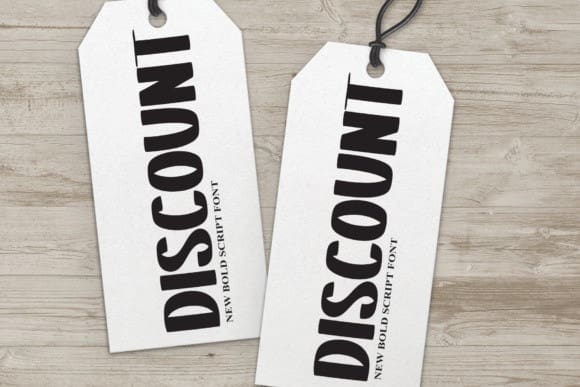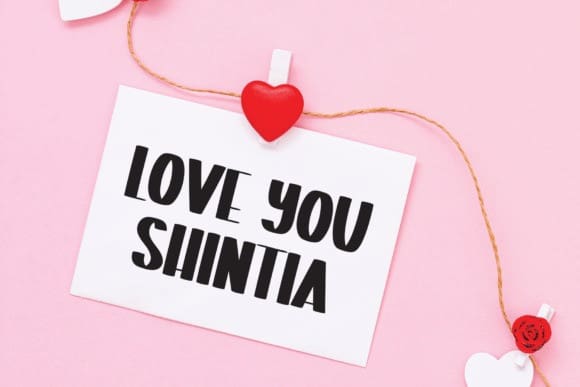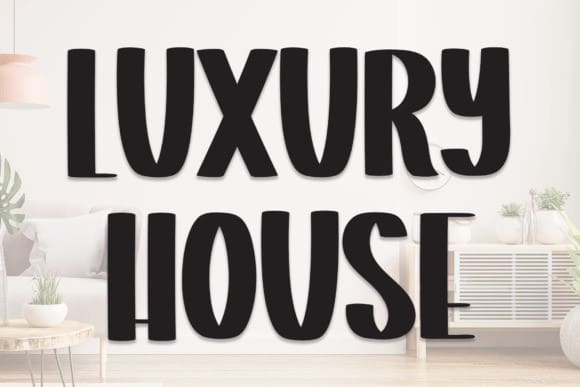
Luxury House Font
Luxury House Font is a bold and sleek handwritten sans serif font. Add it to your creative projects and you will be amazed by the outcome generated!